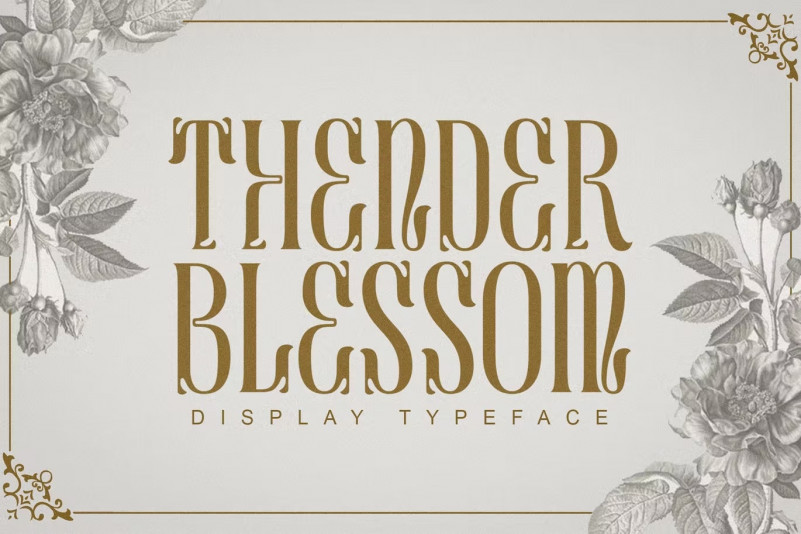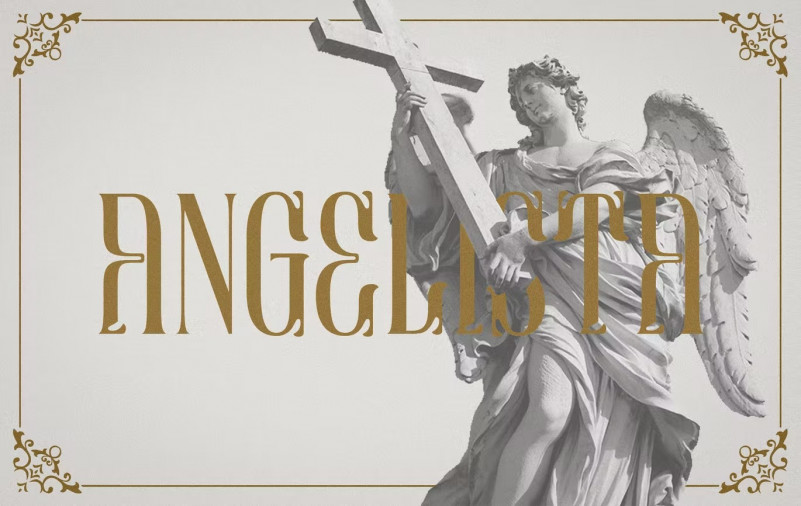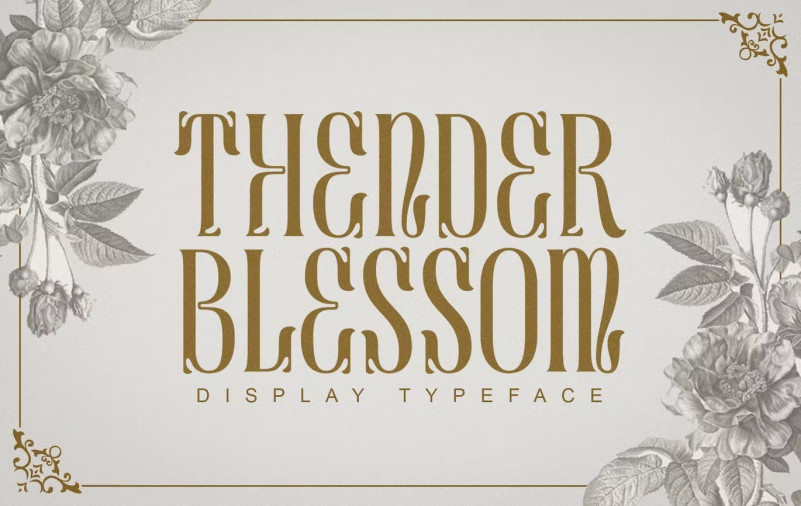
Thender blessom Font
Thender blessom is a special retro style font. Made with accurate accuracy. It is perfect for branding design, logo, greeting cards, headline packaging. and other designs. Immediately use our fonts to make your work even more amazing.